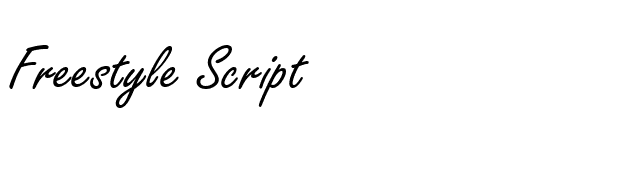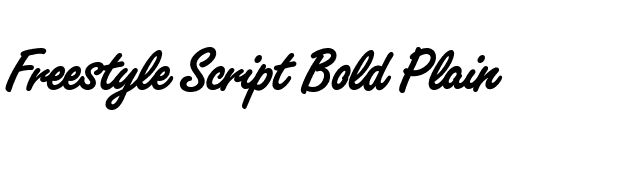
This font is part of microsoft office 2016 software package so it cannot be downloaded separately. Freestyle script was designed by martin wait and published by itc.
Freestyle script font license. Freestyle script is the work of designer martin wait. It is an informal display typeface which perfectly renders the spontaneous qualities. This font is free for personal use.
Freestyle script contains 2 styles and family package. This typeface is available within office applications. Install fonts on a server that allows your customers/clients to have remote access to use the fonts for product customization.
Its capitals can be used alone in word settings and are complemented by an extensive lower case alphabet which includes ligatures of every imaginable variety. Freestyle™ script font family designed by martin wait in 1981/1986. Cufonfonts.com's fonts are uploaded by our members.
Designed by martin wait in 1981/1986. An elegant and smooth script font that adds a handwritten feel to your projects. Family packages tech specs licensing.
Freestyle is a font that made the hand by having the character up and down like a dancer. Font redistribution faq for windows; Its capitals can be used alone in word settings and are complemented by an extensive lower case alphabet which includes ligatures of every imaginable variety.